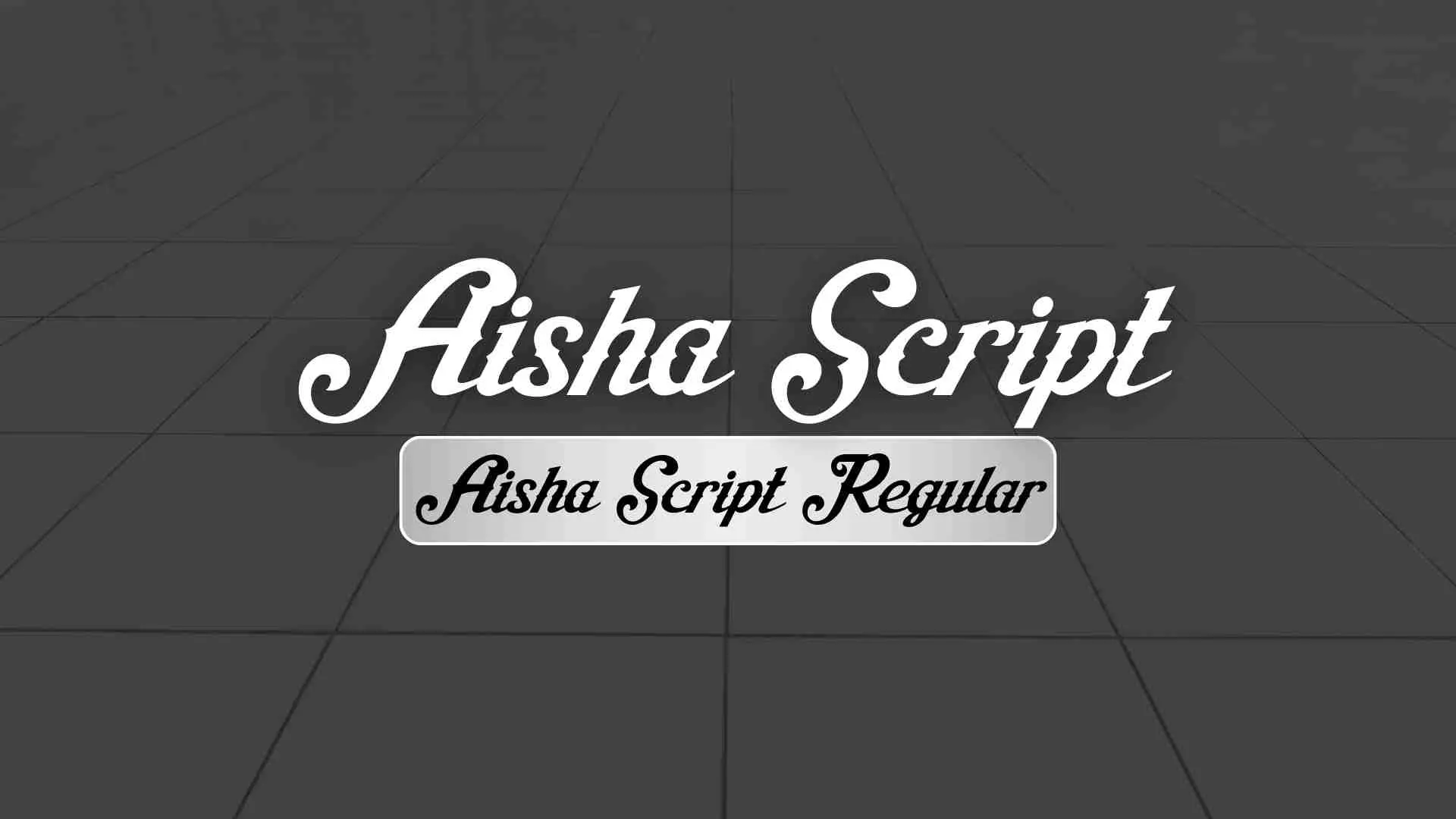
The font Aisha Script Regular, designed by Hendra Pratama / Mikrojihad Typography, falls under the Display, Script category & Aisha Script font family. Its smooth, flowing letterforms make it a versatile choice for projects that require both elegance and readability. Aisha Script is particularly well-suited for Branding, Logo, Event Posters, Event flyers, Invitations and Fan Projects. With its balance of simplicity and decorative appeal, this font brings a polished touch to both personal and professional designs.